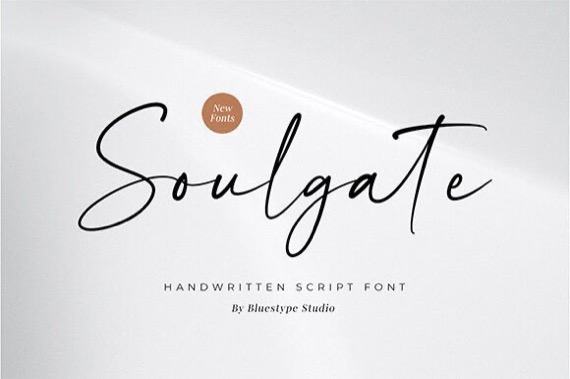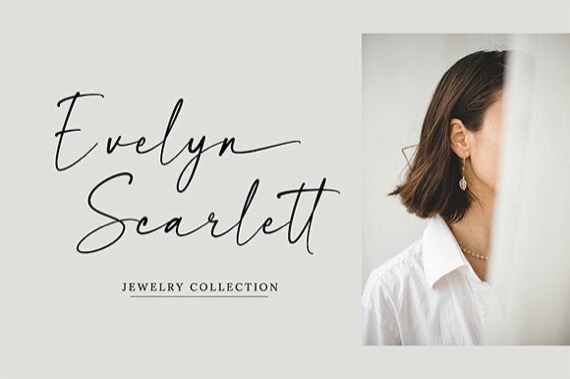
Soulgate is a stylish and incredibly elegant script font. It looks stunning on wedding invitations, thank you cards, quotes, greeting cards, logos, business cards, and every other design that needs a handwritten touch.
Soulgate Handwritten Script Font